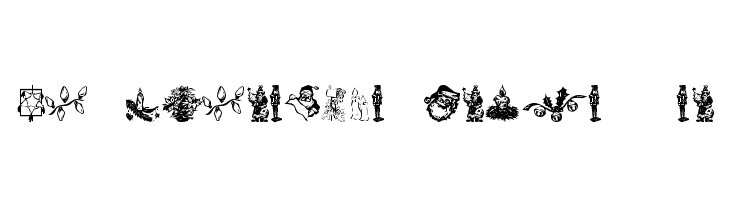
A festive collection of Christmas-themed dingbats perfect for holiday projects.
A whimsical, Christmas-themed decorative font with playful holiday icons.